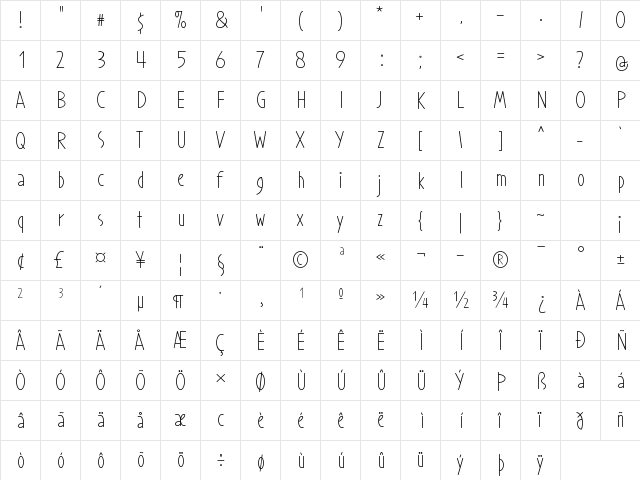
Prohandy Regular
| Foundry | 7NTypes |
| Designer | Situjuh Nazara |
Design Context for Prohandy Typeface
Prohandy flows with the natural rhythm of handwritten lettering, making it ideal for designs that call for warmth and personal expression.
Font Pairing: Combine Prohandy with a simple geometric sans for maximum contrast — the tension between flowing curves and clean structure is a classic typographic pairing.
Pro Tip: Use Prohandy for short runs of text — names, titles, or taglines. Extended body copy in script faces tires the eye quickly.